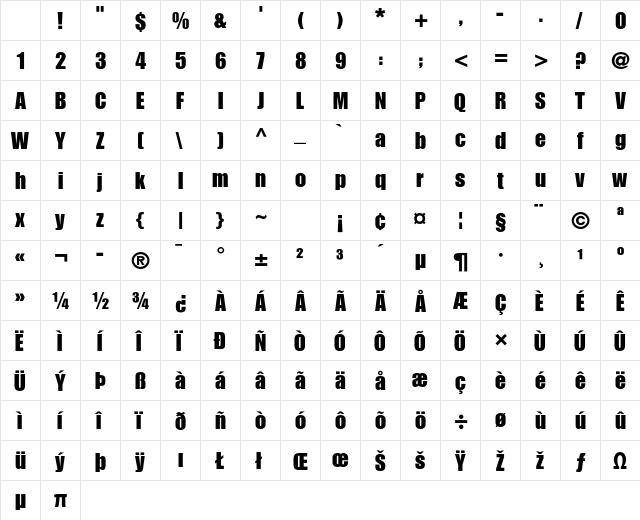
Complete Impact LT Std Roman glyph index. Displaying only characters natively supported by Impact LT Std Roman font.
Impact LT Std brings high-energy athletic personality to the page - its confident, muscular forms are built for impact. Its slender proportions lend an understated elegance to any composition.
Pro Tip: Use Impact LT Std in all-caps headlines where its athletic energy can fully express itself. Pair with a solid, simple sans for supporting text.